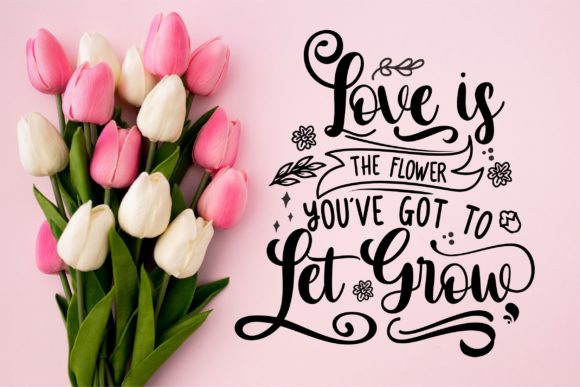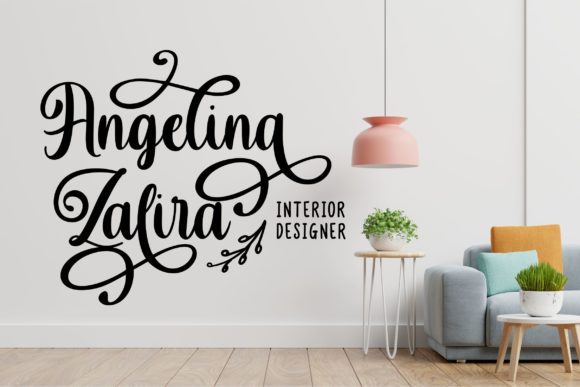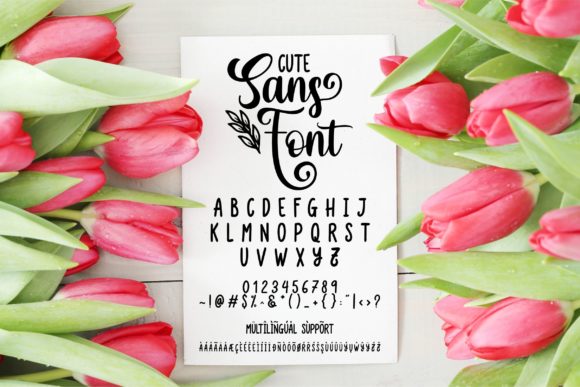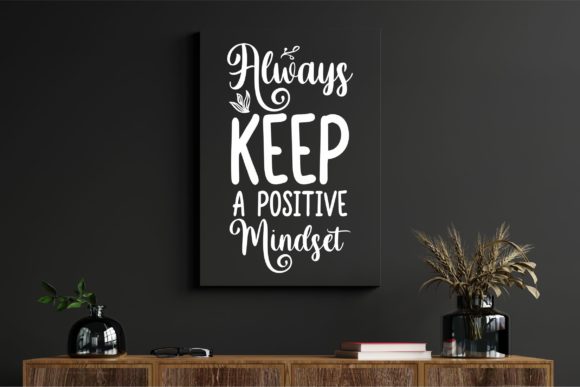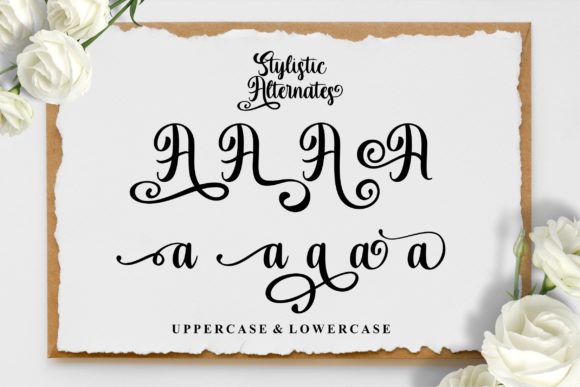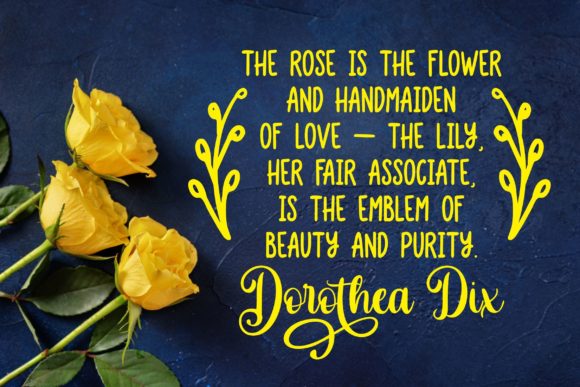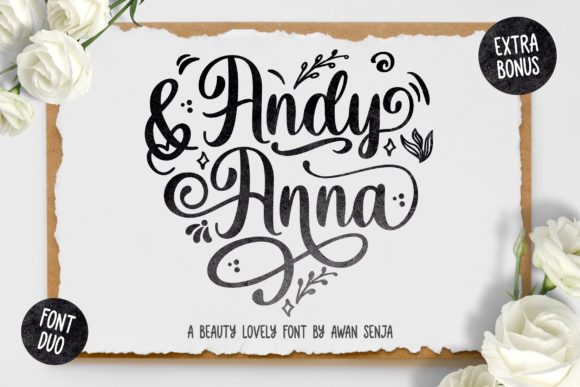
Introducing Andy & Anna Font: The Elegant and Sweet Script for Your Design Needs
Are you a designer or crafter looking for a font that can add a touch of romance and elegance to your design projects? Look no further than Andy & Anna Font! This beautiful script font is designed to bring a sense of sophistication and whimsy to any design idea you can think of. With its elegant and sweet lettering, Andy & Anna Font is the perfect choice for anyone looking to add a special enchanting touch to their work.
The Story Behind Andy & Anna Font
Andy & Anna Font is a carefully crafted script font that is inspired by the beauty of handwritten lettering. The font is designed to be versatile and easy to use, making it perfect for a wide range of design projects, from wedding invitations and party decorations to branding and packaging. Whether you’re a professional designer or a crafty DIY enthusiast, Andy & Anna Font is a great choice for anyone looking to add a personal touch to their designs.
What Makes Andy & Anna Font So Special?
So, what sets Andy & Anna Font apart from other script fonts on the market? Here are just a few reasons why this font is a standout:
• Elegant and Sweet Lettering: Andy & Anna Font features beautiful, flowing lettering that is both elegant and sweet. The font is designed to be easy to read and visually appealing, making it perfect for use in a wide range of design projects.
• Romantic Spark: This font has a romantic spark that makes it perfect for use in wedding invitations, anniversary cards, and other romantic designs.
• Versatile: Andy & Anna Font is a versatile font that can be used in a wide range of design projects, from digital designs to print materials.
Design Ideas to Get You Started
Here are a few design ideas to get you started with Andy & Anna Font:
• Wedding Invitations: Use Andy & Anna Font to create beautiful and elegant wedding invitations that set the tone for your special day.
• Party Decorations: Add a touch of whimsy and fun to your party decorations with Andy & Anna Font. Use the font to create custom banners, garlands, and other decorations.
• Branding and Packaging: Use Andy & Anna Font to add a touch of elegance and sophistication to your branding and packaging. The font is perfect for use in logos, labels, and other marketing materials.